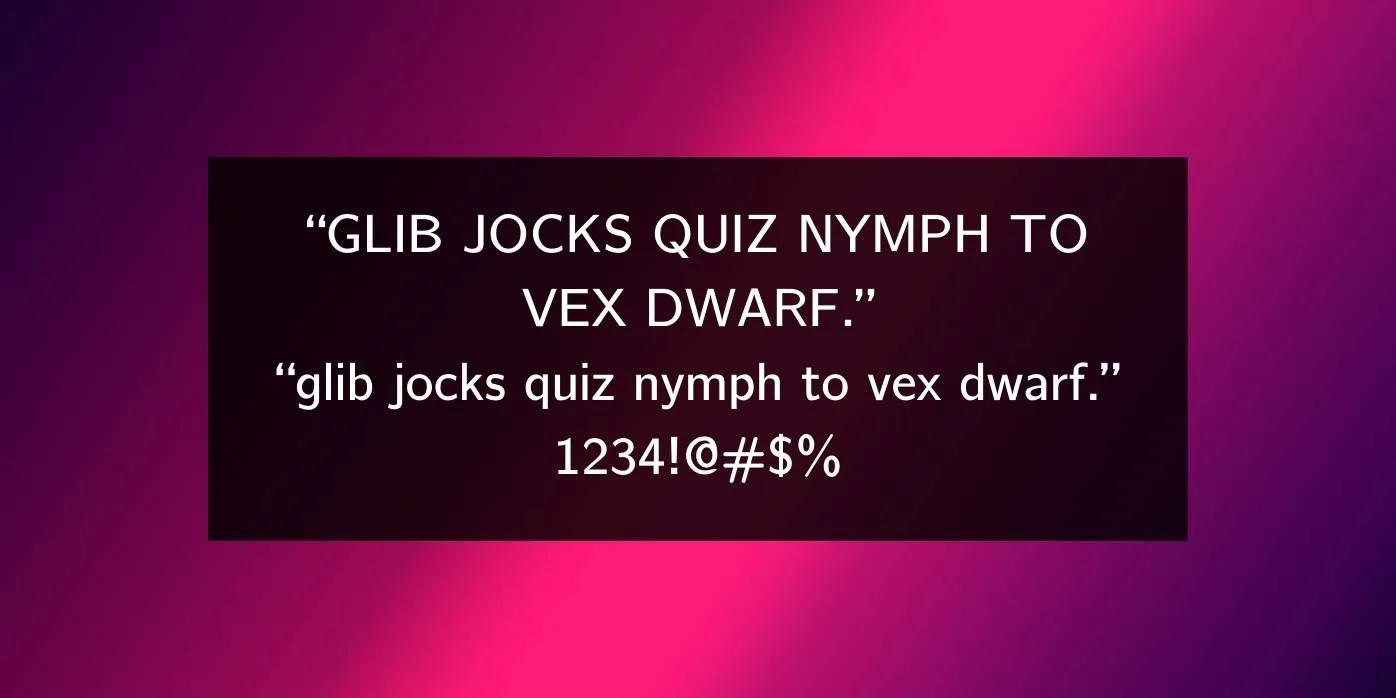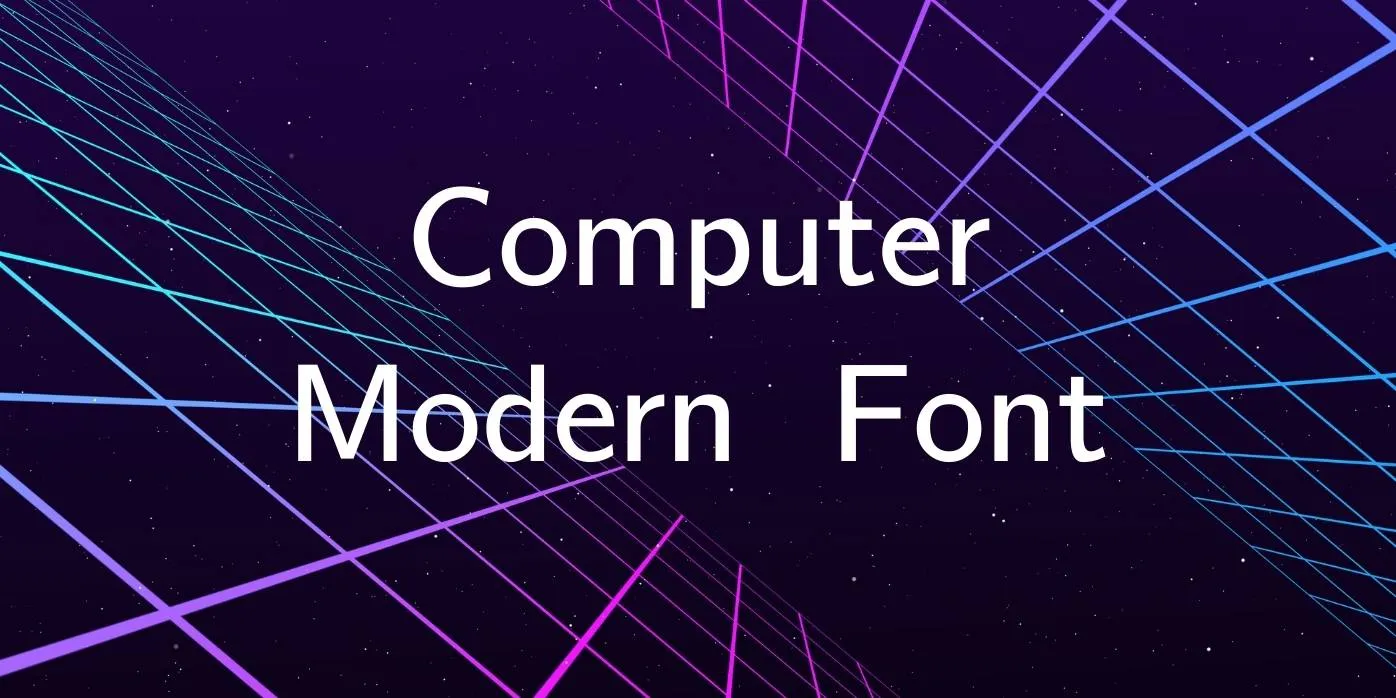
Computer Modern Font
Here, we are going to introduce a stunning typeface known as Computer Modern Font. This typeface was developed by Donald E. Knuth. It belongs to the Sans Serif typeface.
This typeface was designed for use with the typesetting program TeX. It has been released under the GNU General Public License. It is the original family of typefaces used by Knuth in his book The Art of Computer Programming. The first members of the family were created between 1977 and 1979.
The result was a set of high-quality fonts that have been widely used ever since. Its copy and paste function is very useful for all text design projects. The Computer Modern family currently includes over 20 different styles, ranging from light to black weights and from narrow to extended widths. In addition, there are italic, small caps, and sans serif versions of each style.